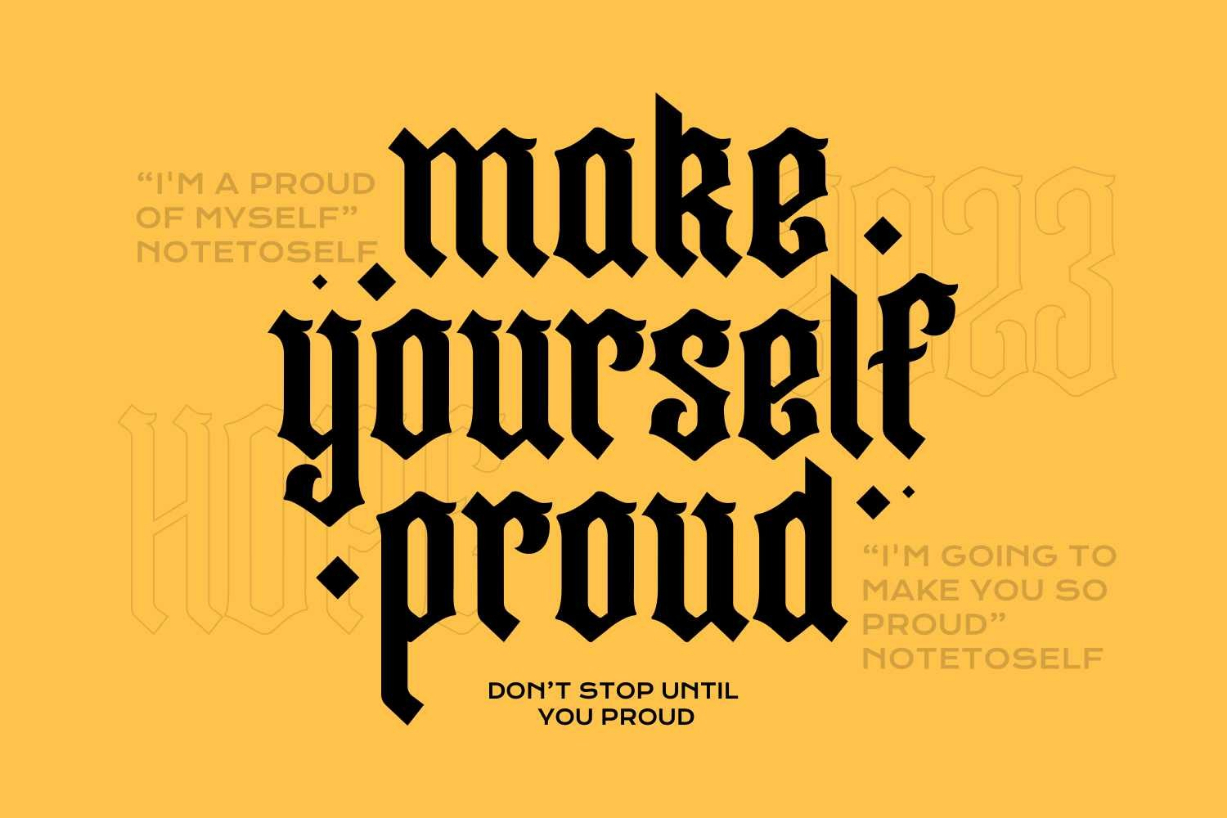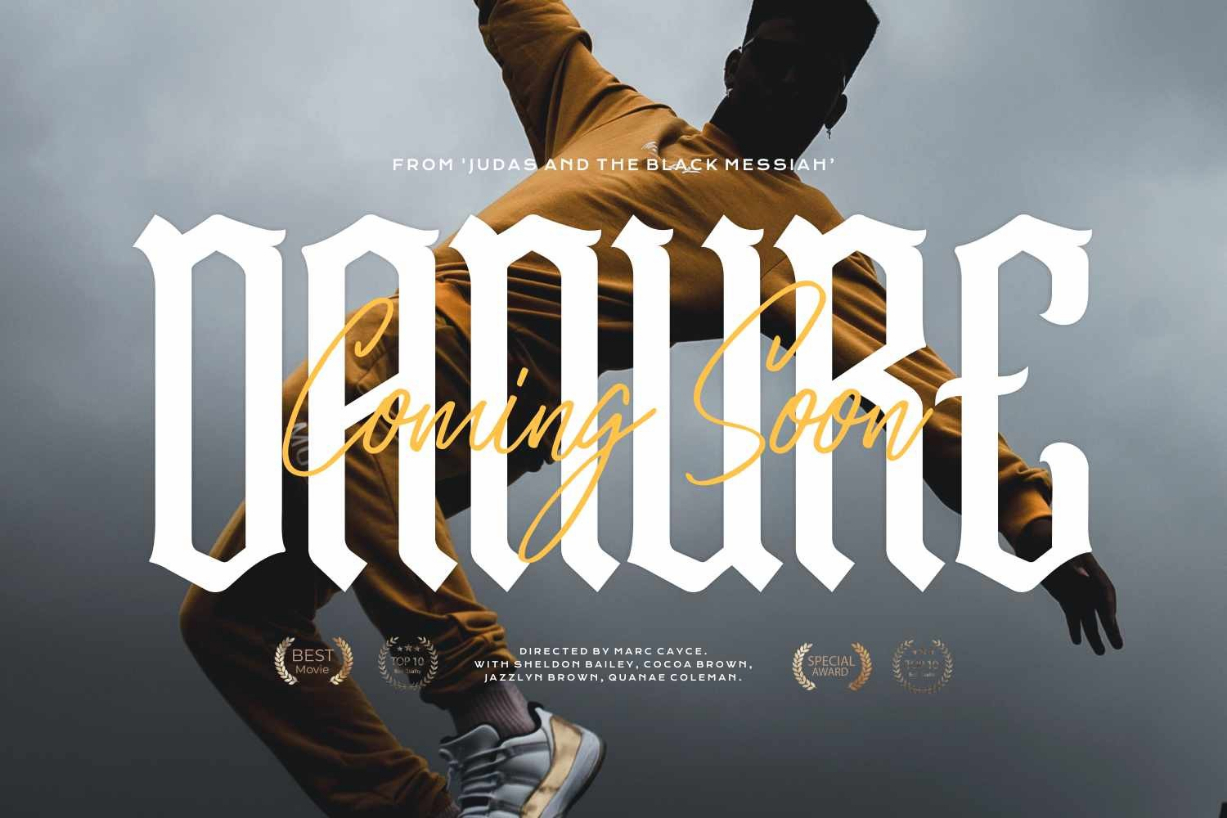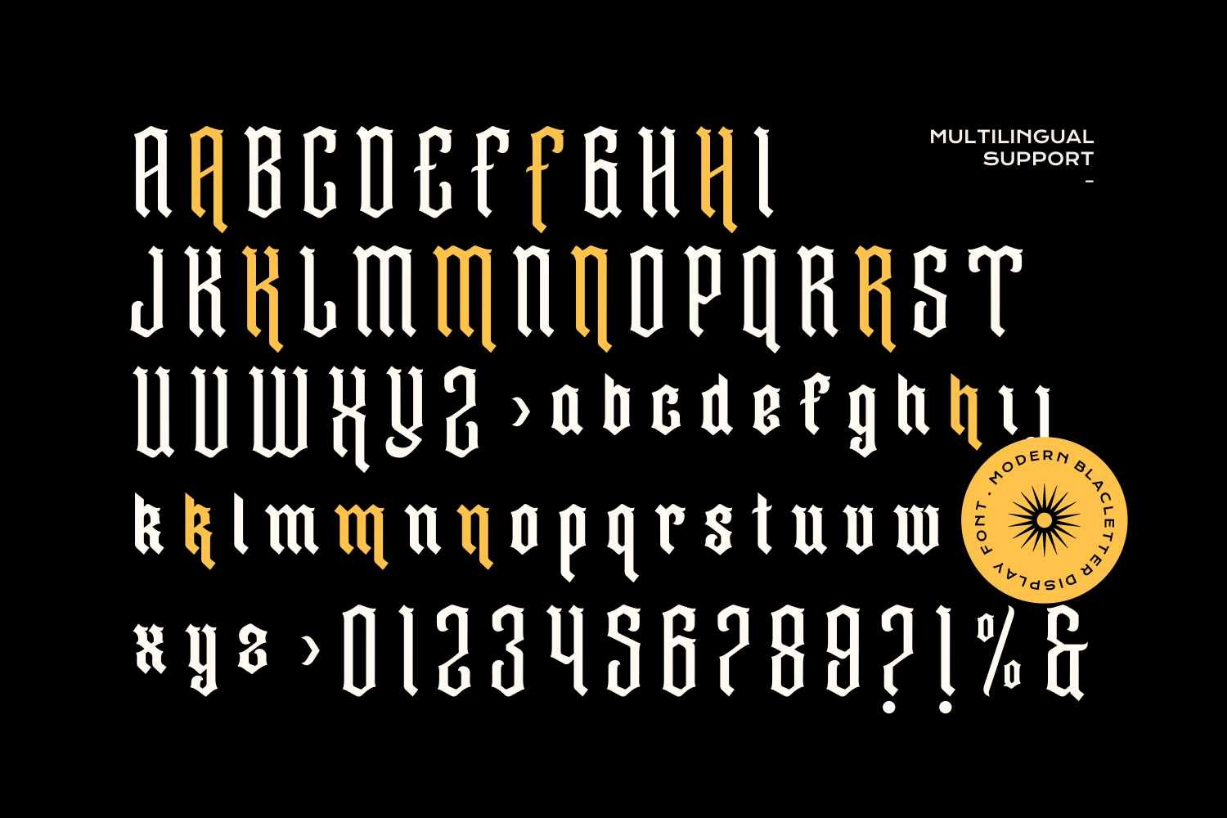
About Youtesh Font
Youtesh is a splendid blacklettter font. Masterfully designed to become a true favorite, this font will enhance any project you wish to create!